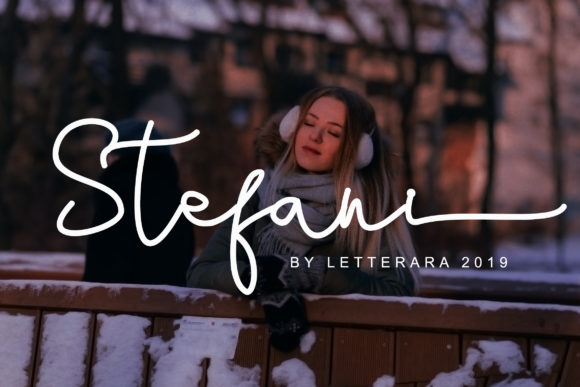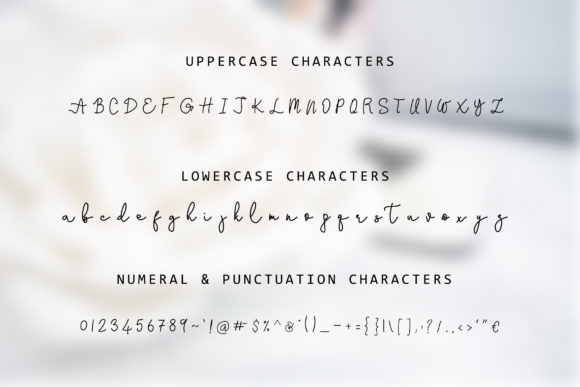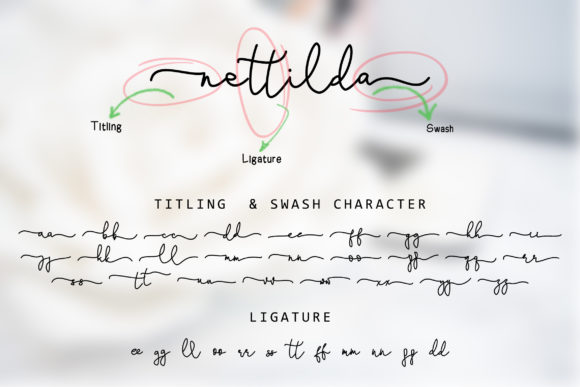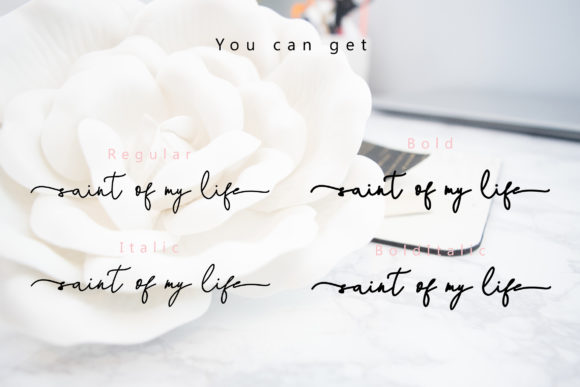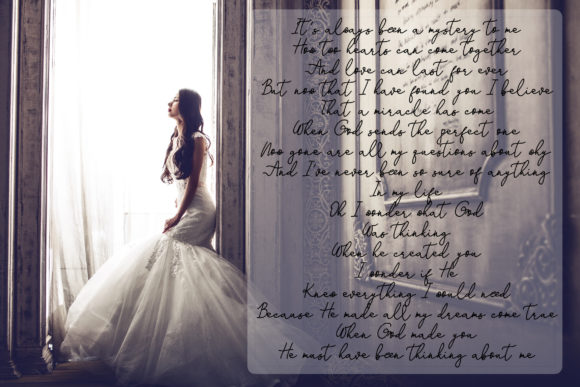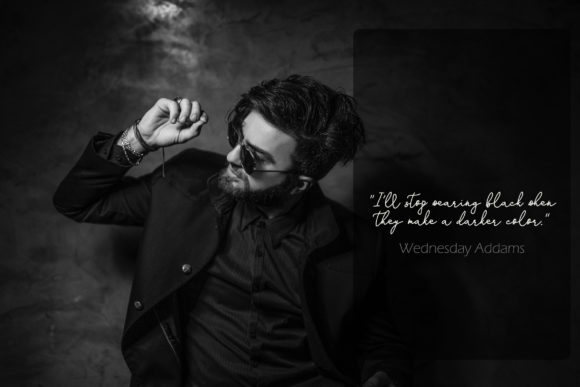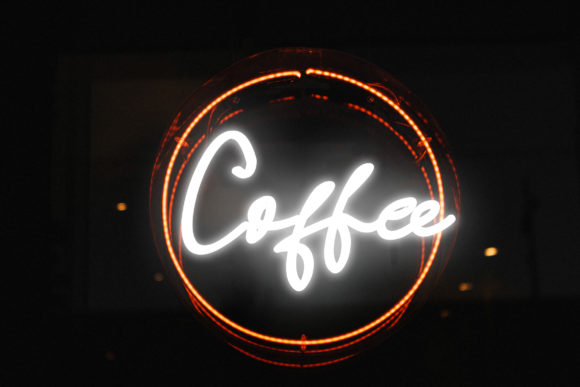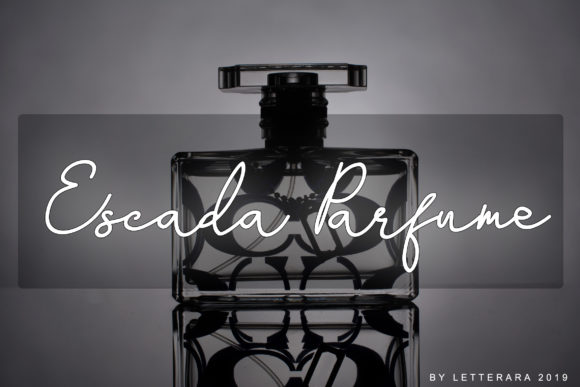
Stefani Family Font
About Stefani Family Font
The Stefani is a stylish, unique, handwritten family that is easy to remember.
It’s great for unique branding, photo overlays, watermarks, business cards, invitations, wedding, photography, fashion, etc.